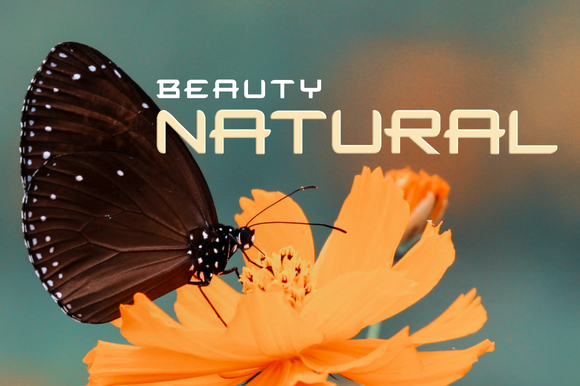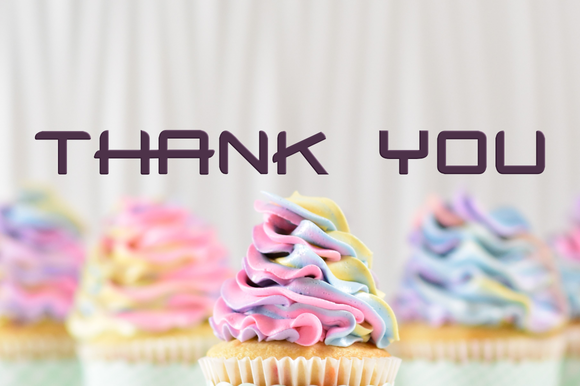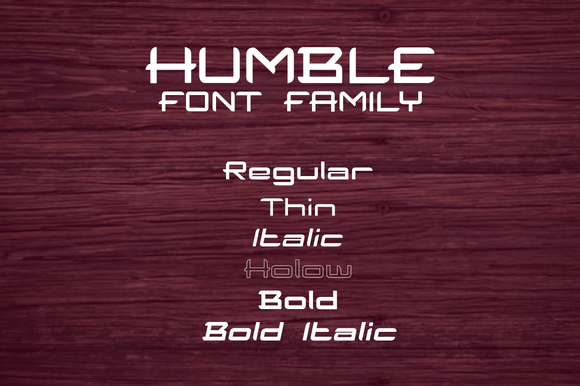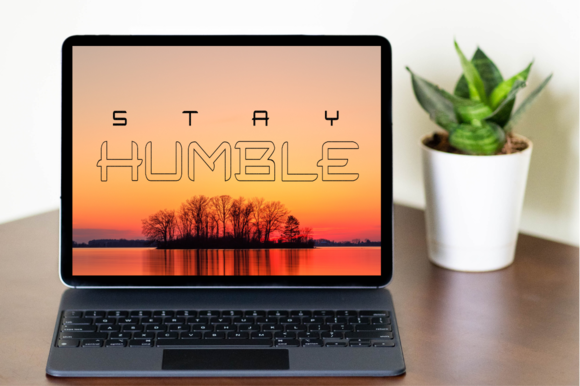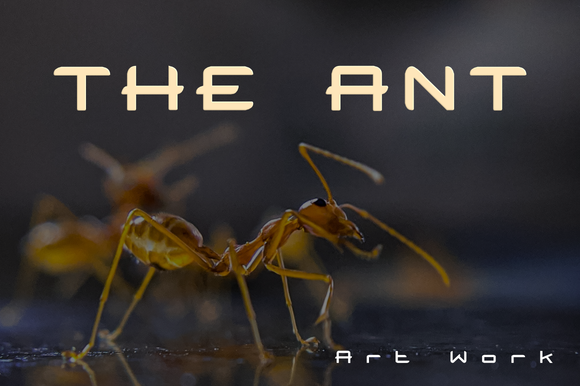
The Perfect Blend of Futurism and Elegance: Discover the Humble Font
Have you ever found yourself stuck in a creative rut, staring at a blank page, waiting for inspiration to strike? It’s a familiar feeling for many designers, but what if we told you that the perfect solution lies in a single, game-changing font? Enter the Humble Font, a cutting-edge display font that’s set to revolutionize your designs and leave a lasting impression on your audience.
With its sleek, futuristic aesthetic, the Humble Font is the perfect choice for any project that demands attention and sophistication. Whether you’re working on a poster, flyer, or print design, this versatile font is sure to elevate your work to new heights. And the best part? Its endless possibilities mean you can experiment and push the boundaries of design to create truly unique and stunning visuals.
Humble Font Key Features
- Font Family: Humble Font is a sans-serif font family designed for clean and modern typography.
- Font Size: The font family includes a range of weights from Light (100) to Extra Bold (900) to cater to various design needs.
- Unique Characteristics: Humble Font features a clean and minimalist design, with subtle rounded edges and a friendly feel, making it ideal for corporate, editorial, and digital design.
- Language Support: Supports a wide range of languages, including Latin, Cyrillic, and Greek scripts, making it a versatile choice for global design projects.
Humble Font Review
I recently had the chance to work with the Humble Font, and I must say it’s a refreshing addition to my design toolbox. ✨
- One of the things that stands out about Humble is its clean and minimalist aesthetic. It’s perfect for projects that require a touch of sophistication without going over the top.
- Another strength of the font is its versatility. It works well in a variety of contexts, from body text to headings and even display typography.
- I also appreciate the font’s subtle texture, which adds a touch of humanity to digital designs.
However, there are a few limitations to keep in mind: ⚠️
- Humble can be a bit too simple at times, which may make it difficult to read in certain situations.
- The font’s texture, while a strength in many cases, can sometimes clash with busy backgrounds or complex compositions.
Overall, I’m impressed with the Humble Font. While it may not be the most exciting or attention-grabbing choice, it’s a solid, reliable option for designers who value simplicity and subtlety. I’d definitely consider using it for future projects, especially those that require a touch of elegance and refinement.
Getting the Most Out of Humble Font
For the best results, use Humble Font in combination with bold or italic styles to add emphasis. You can also use it in conjunction with other fonts to create a unique and eye-catching design. Experiment with different font sizes and styles to achieve the desired look.
Humble Font is perfect for creating a vintage or distressed look in your designs. Use it for headings, titles, or quotes to add a touch of elegance and sophistication. It’s also great for creating a rustic or handmade feel in your designs.